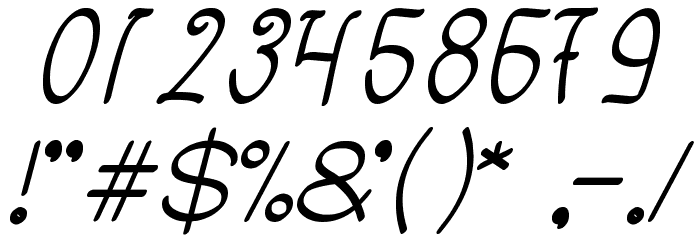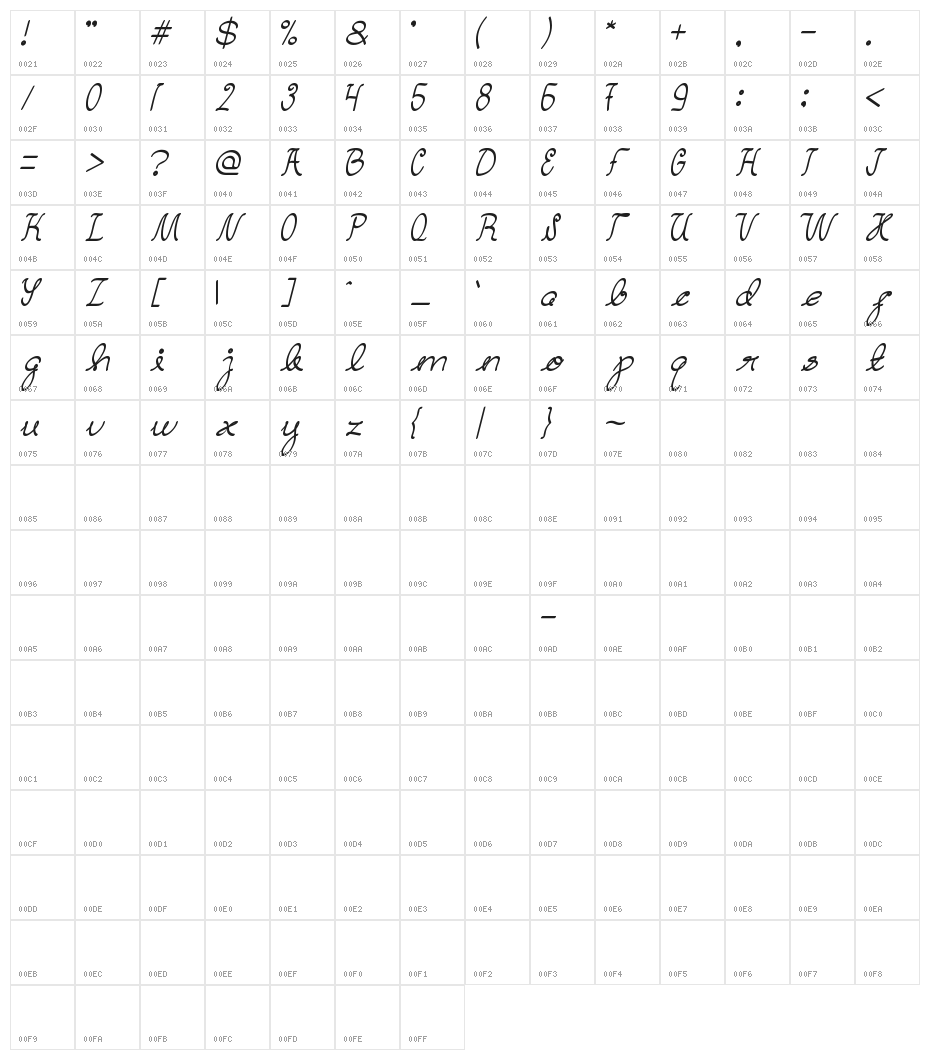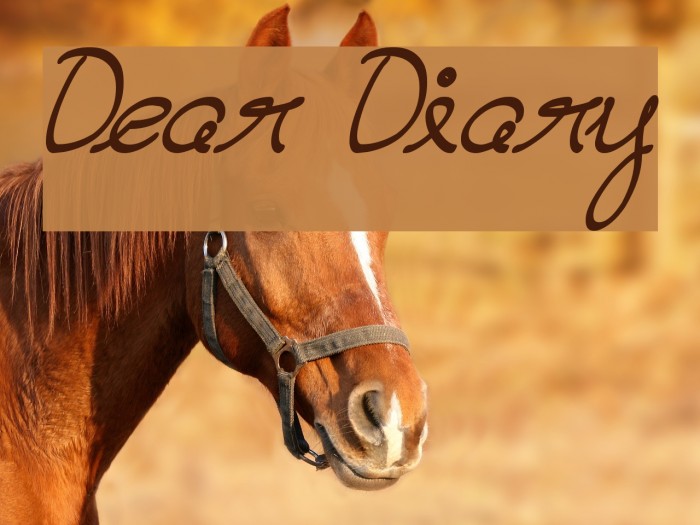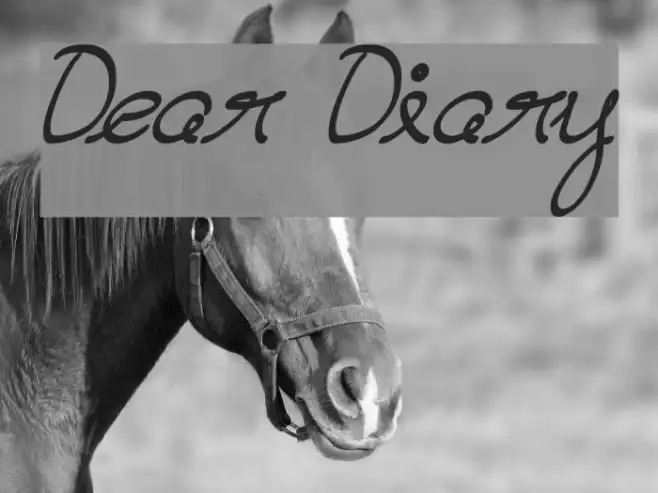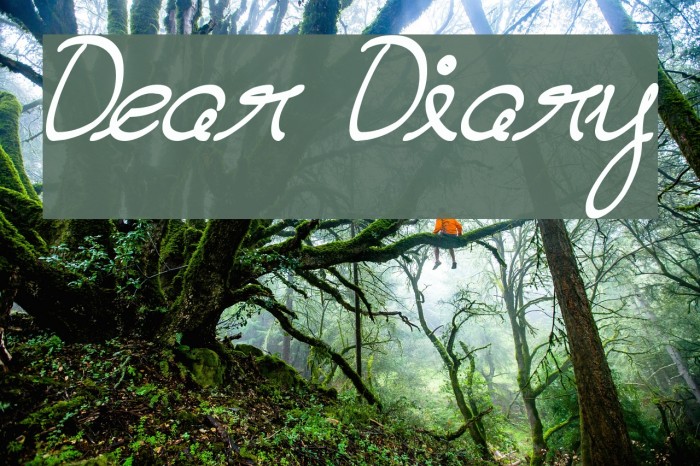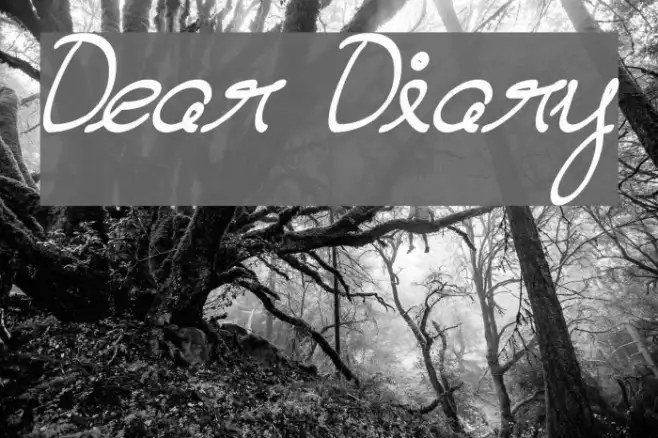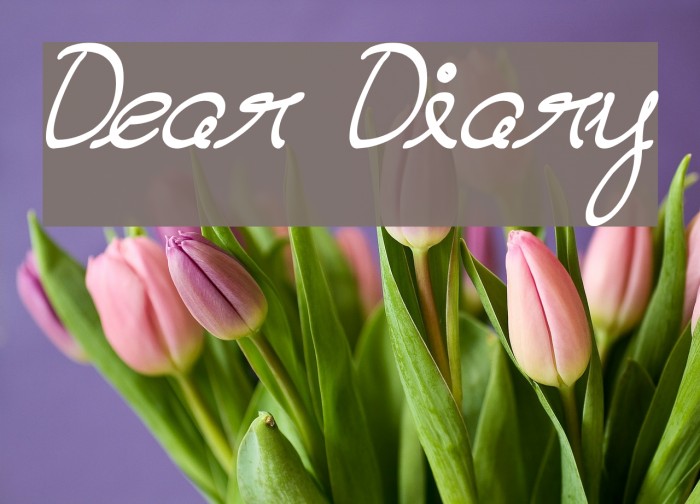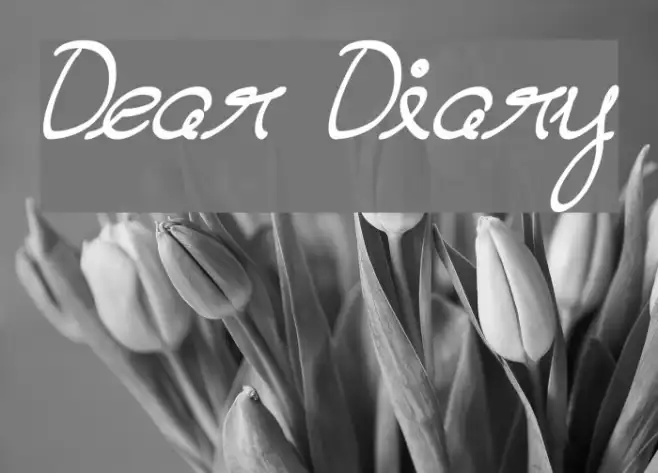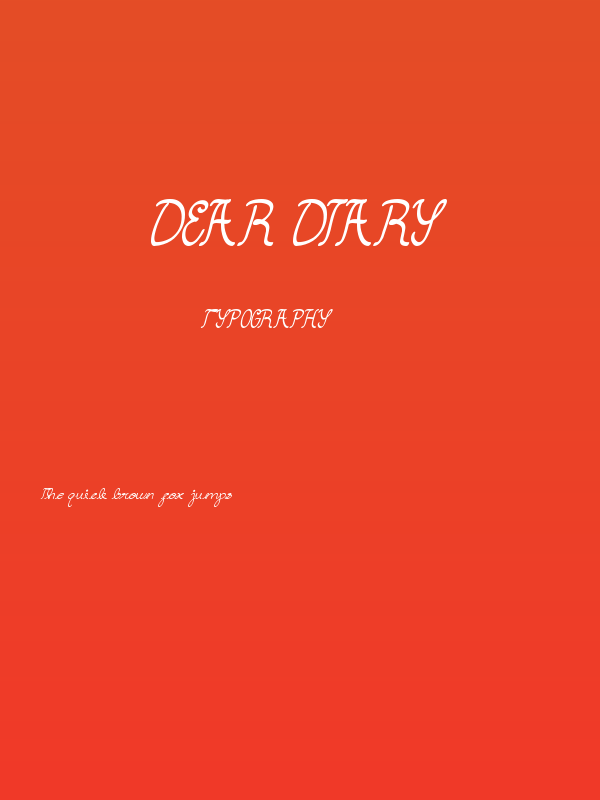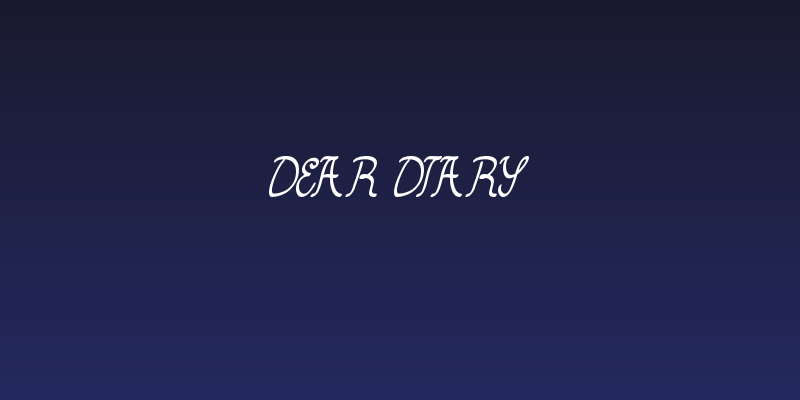
Dear Diary Font
Dear Diary Description
This font exudes a handwritten charm with its fluid, cursive style that mimics the natural flow of penmanship. Each character is gracefully connected, creating a seamless and elegant appearance. The uppercase letters stand tall with a slight slant, while the lowercase letters maintain a consistent rhythm, enhancing readability. The numerals and special characters are crafted with the same attention to detail, ensuring a cohesive look across all text. This font is perfect for adding a personal touch to any project, evoking a sense of nostalgia and warmth.
| Use Case | Logos, Invitations, Personal notes |
| Proposed Projects | Ideal for personal diaries, invitations, greeting cards, and branding materials that require a personal touch. |